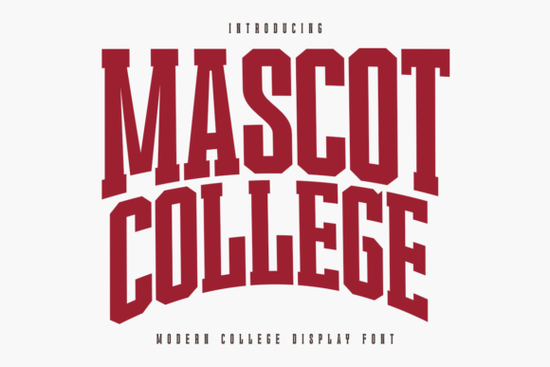
If you're looking for a font that captures the spirit and energy of classic varsity designs, Mascot College Font is an excellent choice. This bold and authoritative typeface is perfect for adding a touch of nostalgia and professionalism to your creative projects.
Why Choose Mascot College Font?
Mascot College is designed with a strong, blocky anatomy that brings timeless athletic slab-serif details to your designs. Whether you're a graphic designer, a professional crafter, or a Print on Demand (POD) entrepreneur, this font is a versatile tool that can enhance your work. It's particularly well-suited for high-impact t-shirt designs, university-style team logos, sports jerseys, and high-energy fan merchandise.
Perfect for T-Shirts and Merchandise
One of the standout features of Mascot College is its exceptional readability. The clean, sharp outlines make it ideal for both digital and physical applications. For those using Cricut or Silhouette machines, the font provides a smooth cutting experience, ensuring a crisp, high-quality finish for vinyl projects. This makes it a top choice for creating spirited school posters, collegiate branding, and personalized gifts.
How to Use Mascot College in Your Designs
Incorporating Mascot College into your design toolkit is straightforward. Here are a few tips to get you started:
- Choose the Right Context: Use Mascot College for projects that require a bold, authoritative presence, such as sports-themed designs or collegiate branding.
- Combine with Complementary Fonts: Pair Mascot College with other fonts to create a balanced and visually appealing design. For example, you might use a more delicate script font like Have A Nice Day Honey for a softer, more personal touch.
- Experiment with Colors and Textures: Play around with different color schemes and textures to bring out the best in your designs. The strong, blocky nature of Mascot College can handle a wide range of colors and backgrounds.
Creating High-Impact T-Shirt Designs
For print-on-demand sellers, Mascot College is a go-to font for creating high-impact t-shirt designs. Its bold and commanding presence makes it perfect for sports teams, school events, and fan merchandise. Here’s how you can make the most of it:
- Select a Theme: Decide on the theme of your t-shirt, whether it's a specific sport, a school event, or a fun slogan.
- Design the Layout: Use Mascot College as the main font for your text. You can also add smaller, complementary text in a different font, like Stacked Chunky, to add variety and balance.
- Add Graphics: Incorporate relevant graphics, such as team mascots, school logos, or sports equipment, to enhance the overall design.
- Test and Adjust: Before finalizing your design, test it on different t-shirt colors and sizes to ensure it looks great in all variations.
Using Mascot College for Personalized Gifts
Mascot College is not just for large-scale projects; it's also perfect for creating personalized gifts. Whether you're making a custom mug, a keychain, or a framed print, this font adds a professional and energetic touch. Here are some ideas:
- Personalized Mugs: Add a name or a short message in Mascot College for a bold and memorable gift.
- Keychains and Magnets: Use the font for small, impactful messages that stand out.
- Framed Prints: Create a framed print with a motivational quote or a special message, using Mascot College for a strong, commanding look.
Tips for Using Mascot College in Vinyl Projects
When using Mascot College for vinyl projects, here are a few tips to ensure a smooth and professional result:
- Use High-Quality Vinyl: Invest in good quality vinyl to ensure a clean cut and a long-lasting finish.
- Adjust Cutting Settings: Fine-tune your cutting machine's settings to match the thickness and complexity of the font. This will help prevent any tearing or misalignment.
- Apply with Care: When applying the vinyl, use a squeegee or a similar tool to smooth out any air bubbles and ensure a seamless application.
Final Thoughts
Mascot College Font is a versatile and powerful addition to any designer's toolkit. Its bold, authoritative style and clean, sharp outlines make it ideal for a wide range of creative projects, from t-shirts and merchandise to personalized gifts and vinyl projects. By following these tips and experimenting with different combinations, you can create designs that truly stand out.